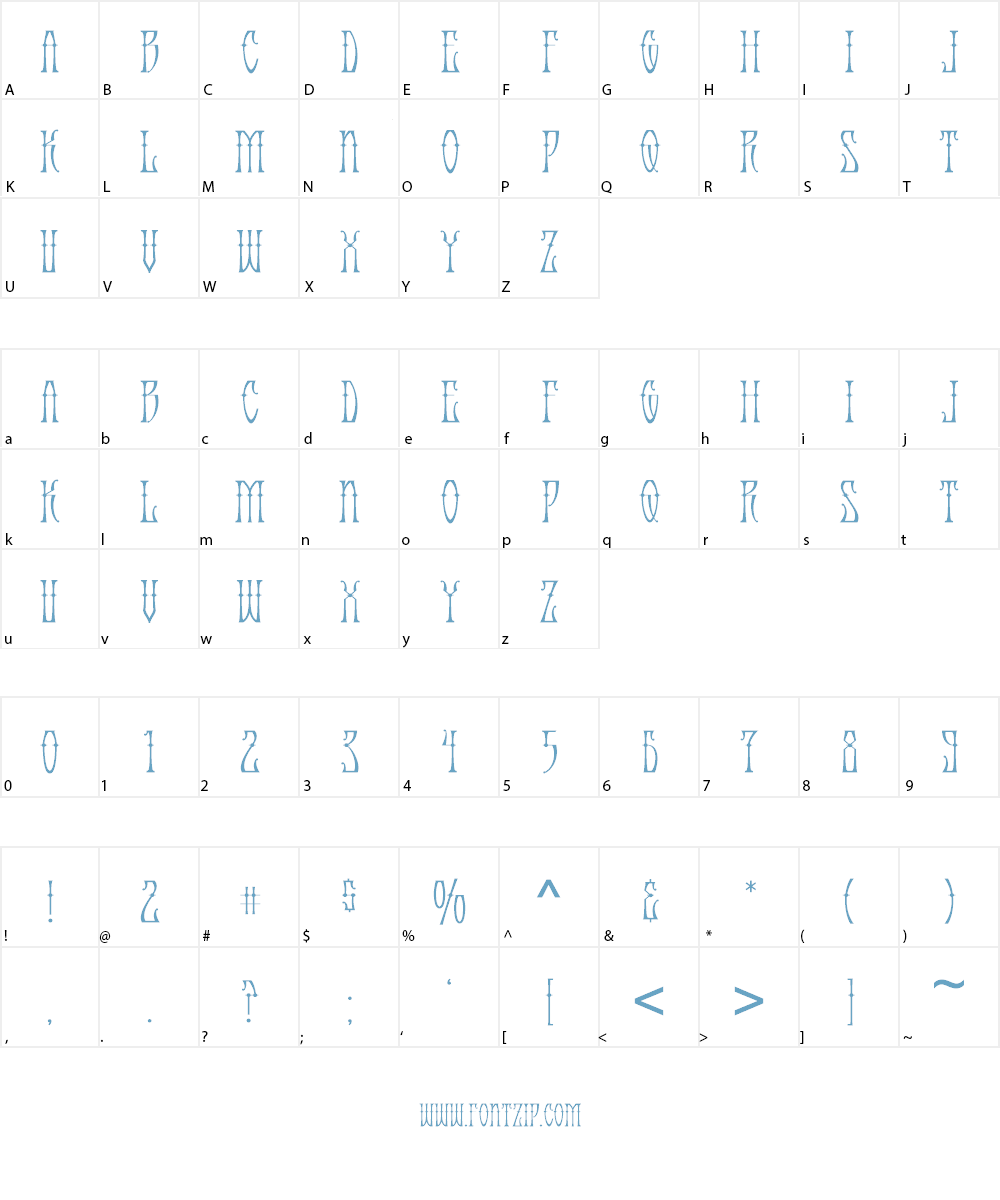
Back in 1993 I made some pencil sketches that gave me the idea for this font. It sat for years, unfinished. Not long ago I decided to finally complete it. This font is for personal use only. To use it for commercial work, please buy it at my Etsy store: https://www.etsy.com/listing/637234275/antique-android-font-instant-download